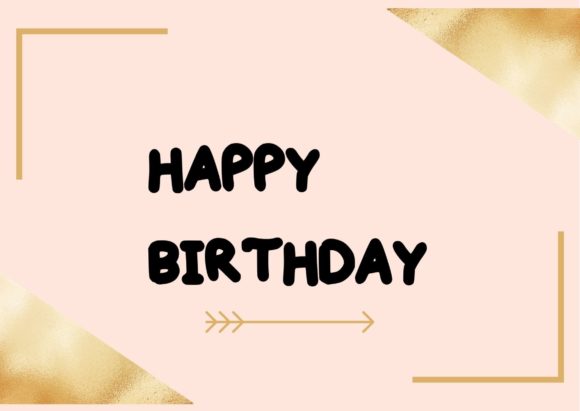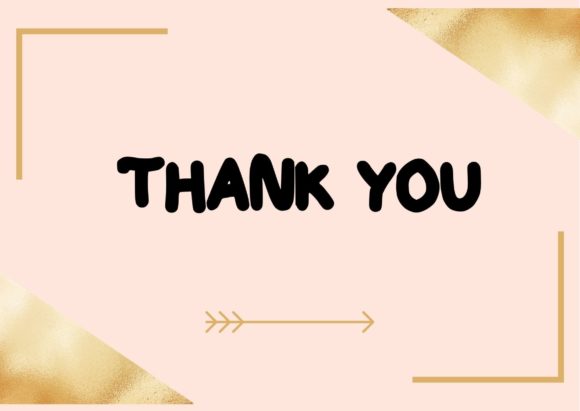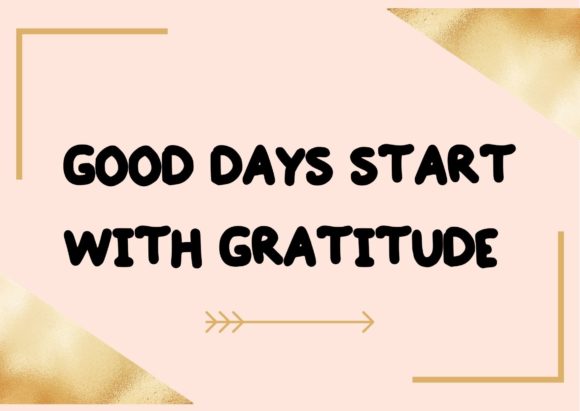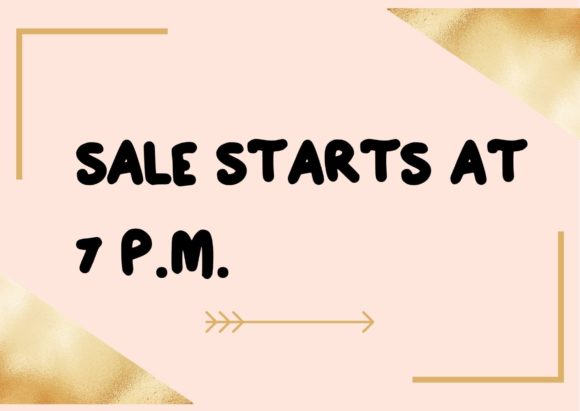
Unlock the Magic of Your Designs with Bold Black Font
Have you ever been stuck in a creative rut, staring at a blank page or screen, unsure of how to bring your vision to life? It’s a feeling we’ve all experienced at some point or another. But what if I told you that there’s a secret ingredient that could elevate your designs and make them truly shine? Enter the Bold Black Font, a charming and friendly handwritten font that’s sure to add a personal touch to any project.
As a designer, you know that the right font can make all the difference in conveying your message and connecting with your audience. The Bold Black Font is more than just a pretty face – it’s a valuable tool that can help you convey emotion, build relationships, and drive results. Whether you’re creating a logo, brochure, or social media post, this font is sure to be an incredible asset to your library.
Bold Black Font Key Features
- Font Type: Sans-Serif, specifically designed for readability and legibility in digital formats.
- Unique Characteristic: The font’s bold weight and black color make it ideal for headlines, titles, and other prominent text elements, adding a touch of sophistication and elegance to any design.
- Font Style Variations: Available in multiple styles, including Regular, Bold, Italic, and Bold Italic, providing designers with flexibility and creativity to express their vision.
Designer Review: Bold Black Font
I recently had the chance to work with the Bold Black Font, and here’s my honest review.
- The font is extremely legible, making it perfect for body text and readability-focused designs.
- Its bold weight is striking and adds a lot of visual punch to headings and titles.
- The font is highly customizable, allowing me to tweak its spacing and lettering to fit my design needs.
- The font’s lack of style variations (e.g. italic, condensed) can make it feel a bit one-dimensional.
- It may not be the best choice for designs that require a lot of nuance or subtlety.
- The font’s bold weight can be overpowering in certain contexts, so be sure to balance it with more delicate elements.
Overall, I’d give the Bold Black Font 4 out of 5 stars. It’s a solid choice for designs that require a bold, attention-grabbing font, but it may not be the best fit for every project. With some careful consideration and balancing, it can be a great addition to your design toolkit.
Tips for Getting the Most Out of Bold Black Font
Use bold black font to draw attention to important information, such as headings, titles, or calls-to-action. You can also use it to create a sense of hierarchy and organization in your design.
Bold black font is commonly used in:
- Call-to-actions and buttons
- Labels and captions
- Menu items and navigation
Alternatives to Bold Black Font for Designers
1. Impact Font
Impact Font is a sans-serif typeface known for its bold and condensed appearance, making it ideal for headlines and titles. It is similar to Bold Black Font in terms of its boldness, but Impact Font has a more condensed and rectangular shape, which can be beneficial for creating a strong visual impact.
2. Arial Black
Arial Black is a sans-serif font that is similar to Bold Black Font in terms of its modern and clean appearance. However, Arial Black is more versatile and can be used for both headings and body text, making it a good choice for designers who want a consistent font throughout their design.
3. Courier New Bold
Courier New Bold is a monospaced font that is ideal for creating a bold and dramatic effect. It is similar to Bold Black Font in terms of its boldness, but Courier New Bold has a more distinctive and elegant appearance, making it suitable for use in formal and professional designs.